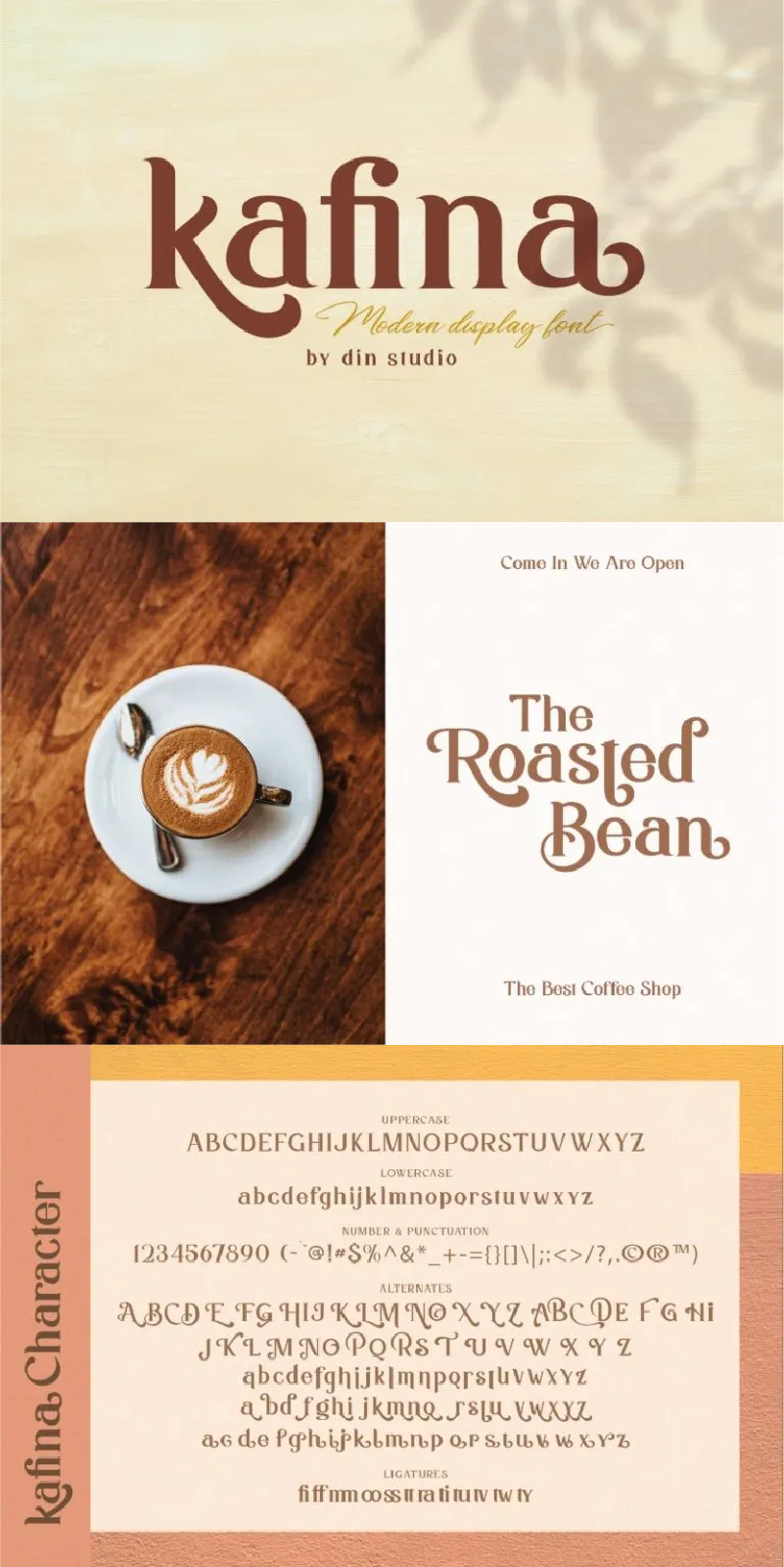
Kafina Font
About Kafina
Kafina is a beautiful display font, designed with a modern and bold style. It’s suitable for brandings, logos, social media campaigns, ads, and many other designs. See the previews above to get some inspiration on how you can use them. Happy designing!
- Accents (Multilingual Characters)
- 12 Ligatures
- 114 Alternates
- Numerals and Punctuations (OpenType Standard)